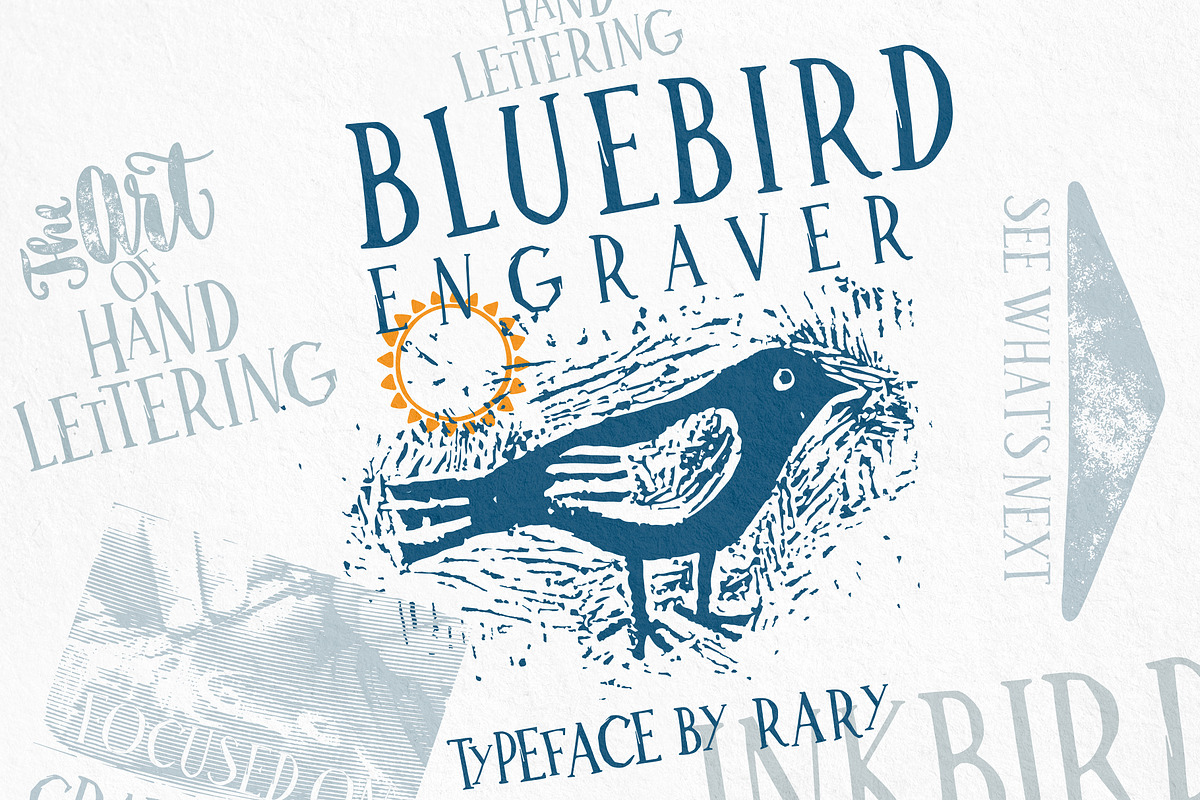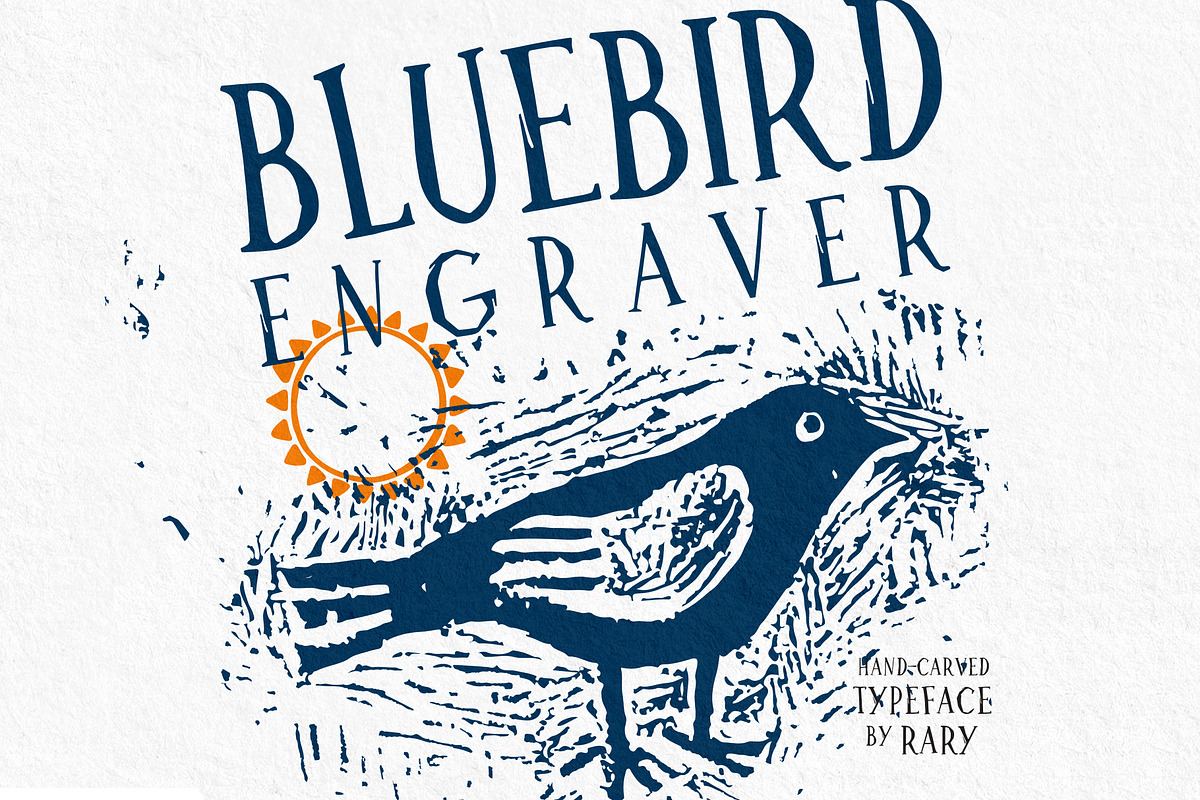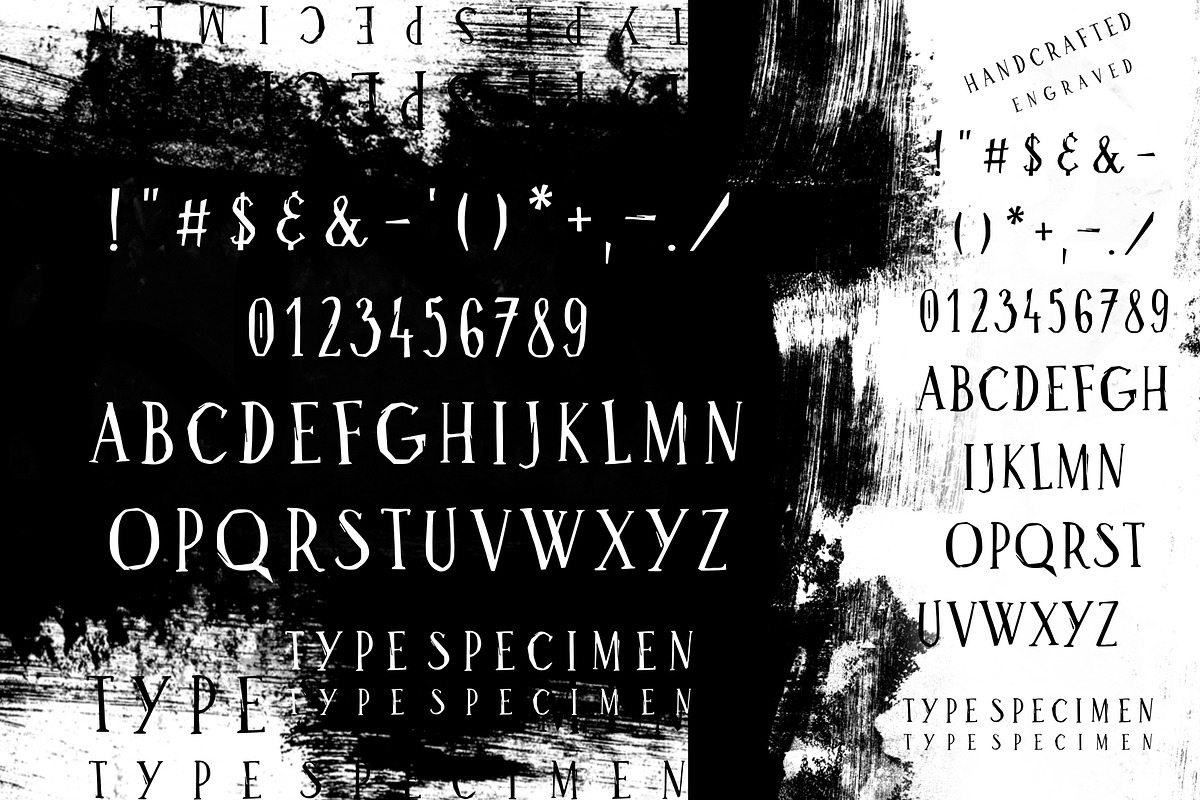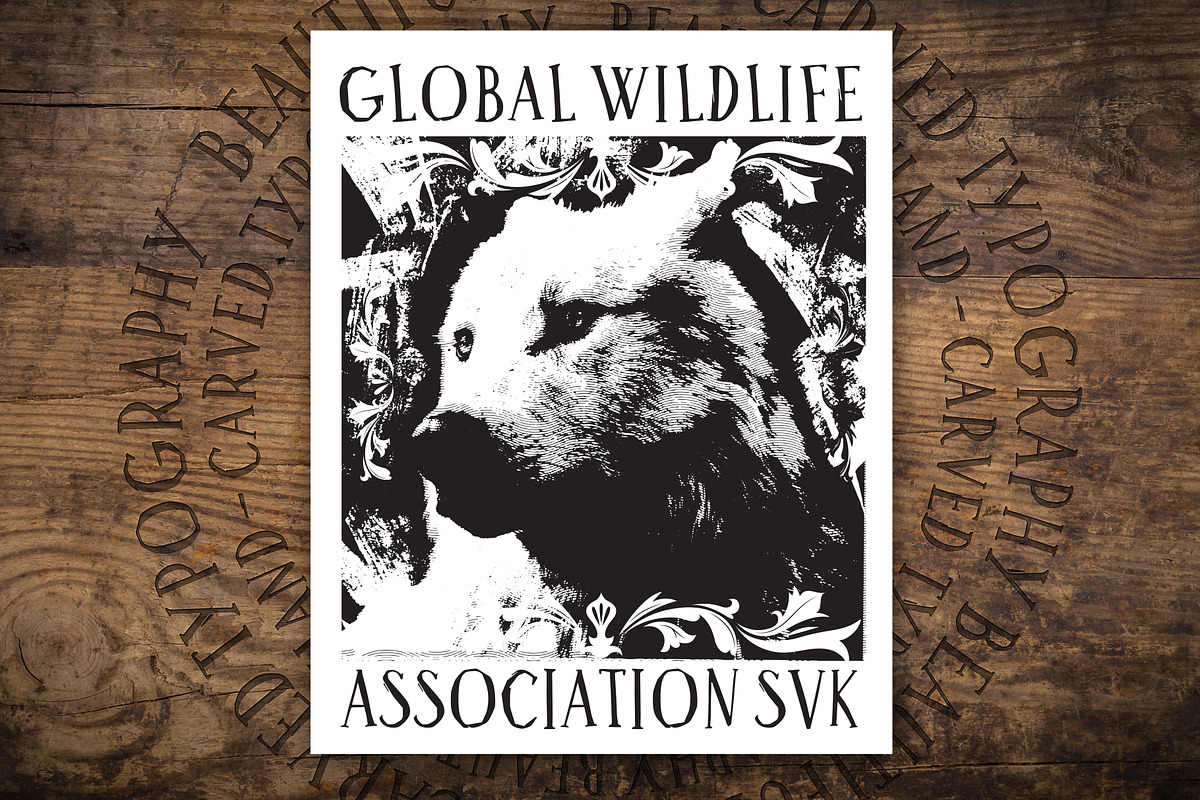
Bluebird Engraver Font
Bluebird Engraver is hand carved, hand-drawn artisan font. Perfectly matched with most hand-made graphics and also great for folk art creations. It has a sketchy character that makes your hand lettering compositions attractive. Add woodcut and linocut impression into your work in combination with ink and paper textures. Make beautiful stamps.